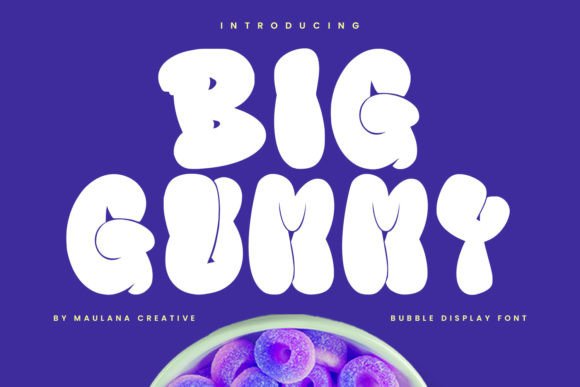
Behold the Big Gummy Font, a display font masterpiece brimming with charm and charisma. Its playful and bubbly persona dances across your designs, injecting a spark of youthful exuberance and sheer delight. Picture yourself creating party invitations that burst with energy, swimming gathering announcements that radiate summer vibes, and countless other designs begging for a touch of lighthearted whimsy.
With Big Gummy in your design toolbox, monotony becomes a thing of the past. This font is an adventure, an escape from the ordinary, into a realm of infectious joy. Its smooth curves and endearing quirks captivate your audience, leaving them with a smile and a desire for more.
But Big Gummy is more than just a pretty face. Its versatility knows no bounds, making it the perfect companion for logos, branding, posters, greeting cards, social media graphics, and much more. Imagine your marketing letters taking center stage, adorned with Big Gummy's magnetic aura, effortlessly captivating your audience and leaving a lasting impression.
Unlock the power of Big Gummy today and transform your designs into joyous expressions of creativity. Its PUA encoding grants you access to a world of glyphs and ligatures, empowering you to unleash your imagination and craft designs that ooze with personality. Say goodbye to dull and mundane fonts and embrace the infectious charm of Big Gummy, the font that ignites smiles and sparks conversations.